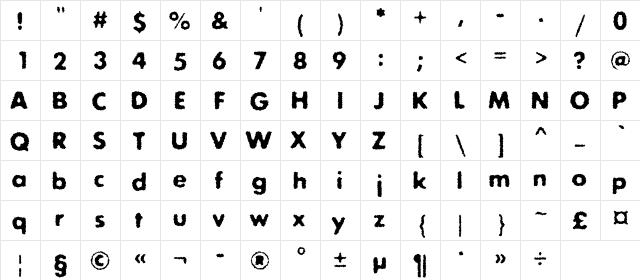
ExposureCTwoRough Regular
Design Context for ExposureCTwoRough Typeface
ExposureCTwoRough embraces imperfection — its rough, textured character adds raw authenticity to designs that want to feel lived-in and unconventional.
A strong fit for alternative music projects, graffiti-adjacent design, and anything that deliberately resists polish.
Pro Tip: Use ExposureCTwoRough at larger sizes where the texture and irregularity of each letterform can be clearly seen — it loses its character at small sizes.